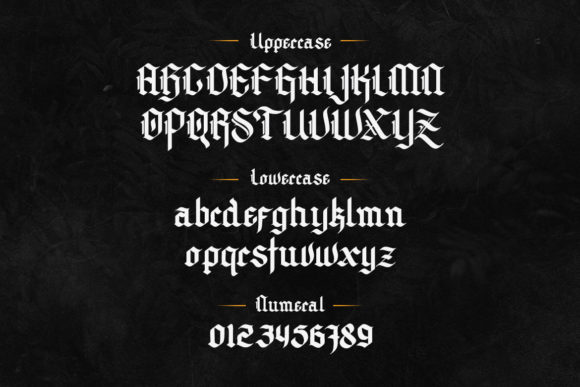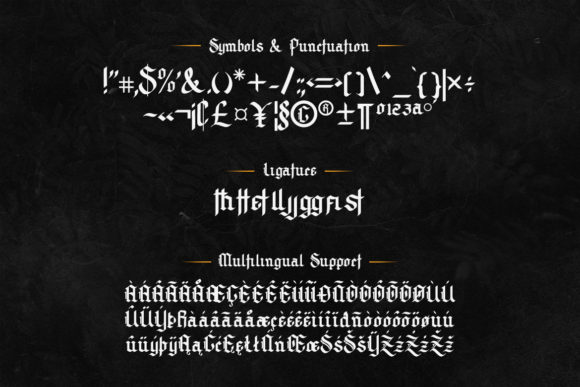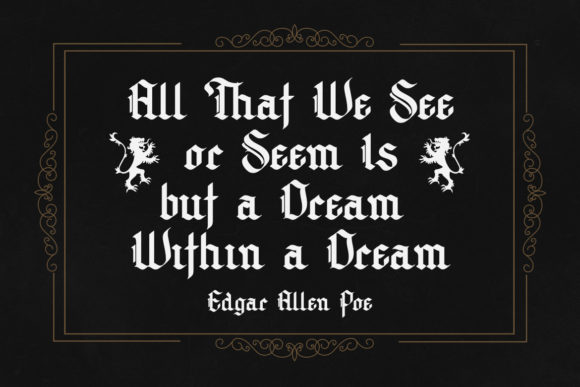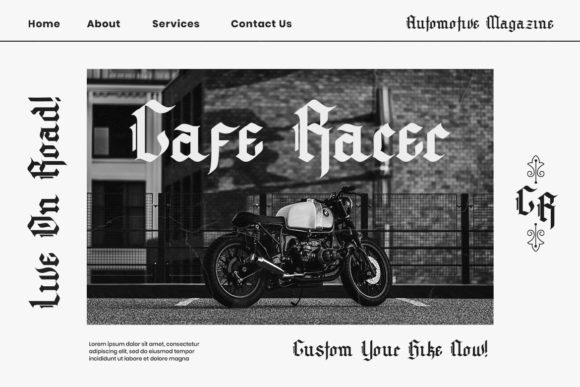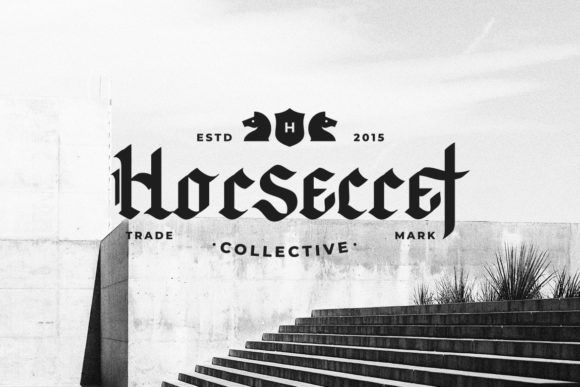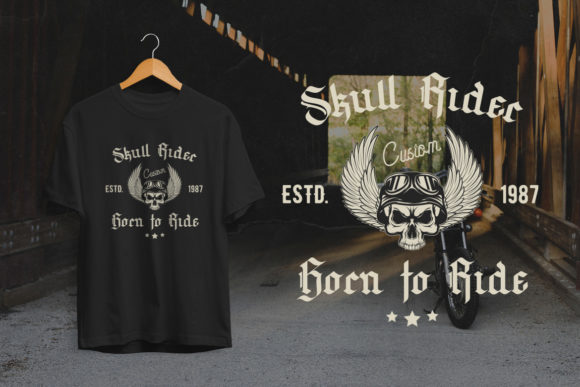
Introducing Archking Font: The Modern Blackletter Marvel
In the realm of typography, few fonts manage to captivate and inspire like Archking. This modern blackletter font is a game-changer, boasting an irresistible blend of appeal and fascination. Whether you’re a seasoned designer, a crafty DIY enthusiast, or simply someone who appreciates the art of lettering, Archking is an incredibly valuable addition to your font library.
The Allure of Blackletter Fonts
Blackletter fonts have been a staple of typography for centuries, with their intricate, ornate, and often dramatic letterforms evoking a sense of history and tradition. From medieval manuscripts to modern-day branding, blackletter fonts have been used to convey a range of emotions and themes, from elegance and sophistication to mystery and intrigue.
Archking, in particular, stands out from the crowd with its unique blend of classic and contemporary elements. Its bold, expressive letterforms are both eye-catching and versatile, making it perfect for a wide range of applications, from logos and branding to invitations and crafts.
What Makes Archking So Special?
So, what sets Archking apart from other blackletter fonts? Here are just a few reasons why this font is an incredibly valuable asset to your typography collection:
- Unparalleled Versatility: Archking is a highly versatile font that can be used for a wide range of projects, from formal and elegant to playful and whimsical.
- Modern Twist: Unlike traditional blackletter fonts, Archking boasts a distinctly modern edge, making it perfect for designers and crafters looking to create something fresh and contemporary.
- Ease of Use: Despite its intricate letterforms, Archking is remarkably easy to use, even for those with limited design experience.
- Scalability: Archking is designed to be highly scalable, ensuring that it looks great whether it’s used for a small craft project or a large-scale branding campaign.
Using Archking in Your Designs
So, how can you use Archking in your designs? The possibilities are endless! Here are a few ideas to get you started:
- Logos and Branding: Archking’s bold, expressive letterforms make it perfect for logos and branding projects, particularly those that require a sense of history or tradition.
- Invitations and Stationery: Add a touch of elegance and sophistication to your invitations, cards, and stationery with Archking’s beautiful letterforms.
- Crafts and DIY Projects: Archking is a great choice for crafty DIY projects, such as handmade cards, scrapbooking, and other paper crafts.
- Digital Design: Archking can also be used in digital designs, such as social media graphics, blog headers, and website titles.
Tips and Tricks for Working with Archking
Here are a few tips and tricks to help you get the most out of Archking:
- Experiment with Different Sizes: Archking looks great at a range of sizes, from small and delicate to large and bold.
- Play with Color: Archking’s intricate letterforms look great in a range of colors, from classic black and white to bold and bright hues.
- Combine with Other Fonts: Archking pairs well with a range of other fonts, so don’t be afraid to experiment with different combinations.
In conclusion, Archking is a modern blackletter font that is both appealing and fascinating. Its unique blend of classic and contemporary elements makes it a valuable addition to any font library, and its versatility and ease of use make it perfect for a wide range of applications. Whether you’re a designer, crafter, or simply someone who appreciates the art of lettering, Archking is an incredibly valuable resource that is sure to inspire and elevate your creations.